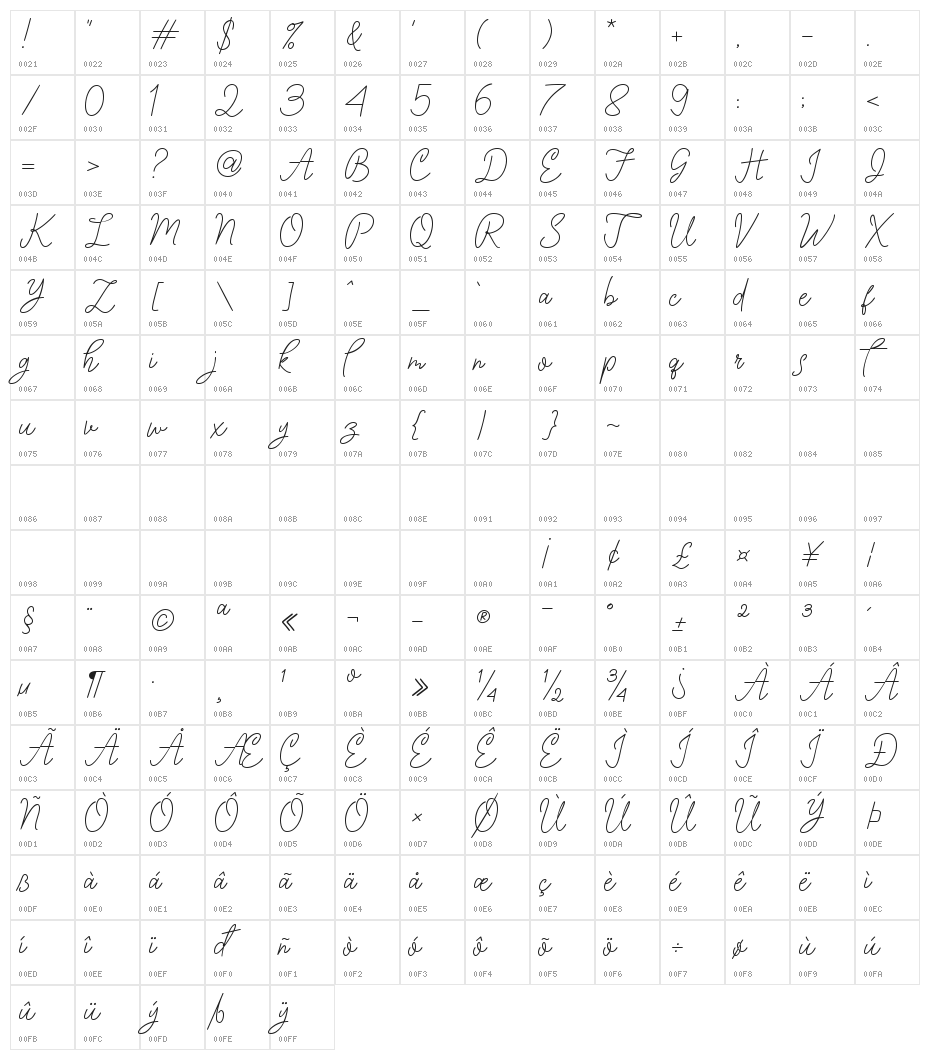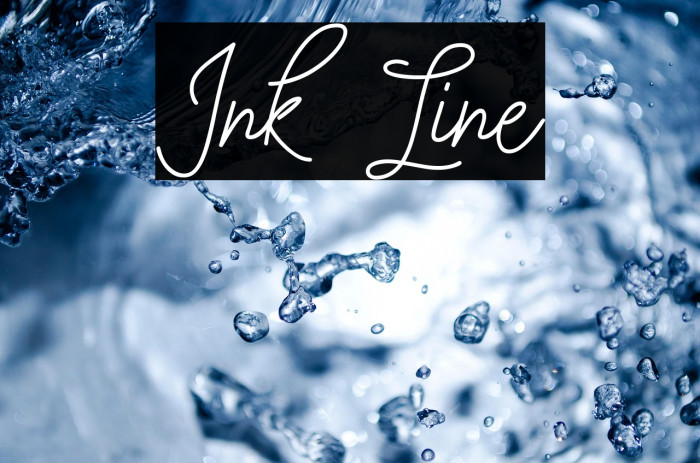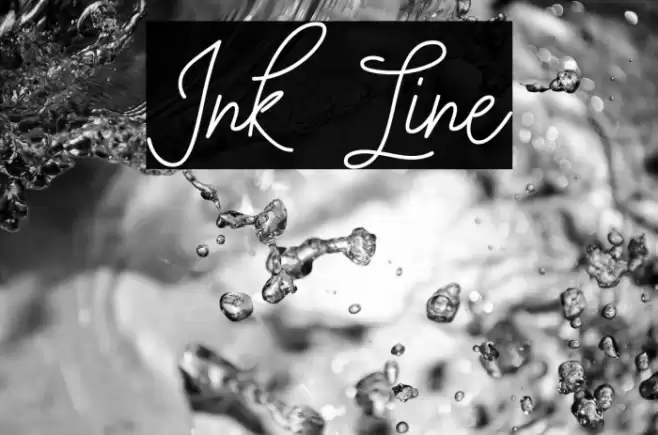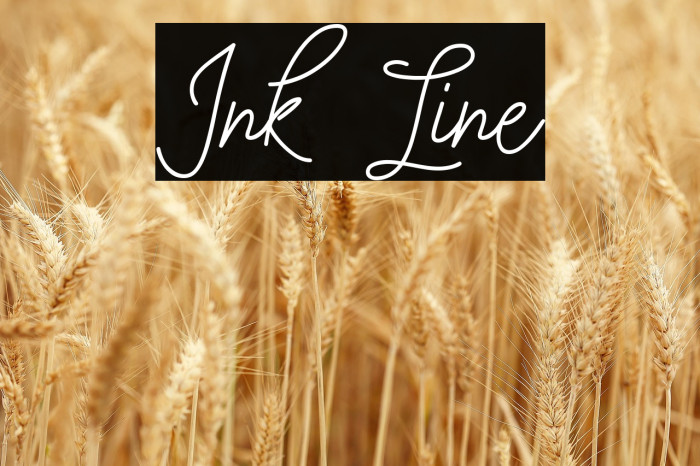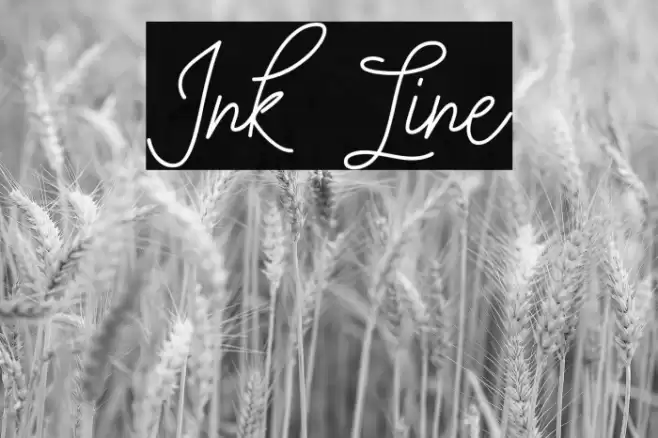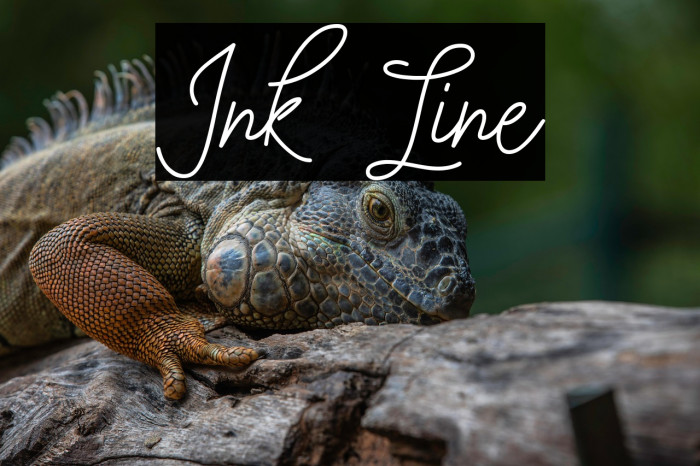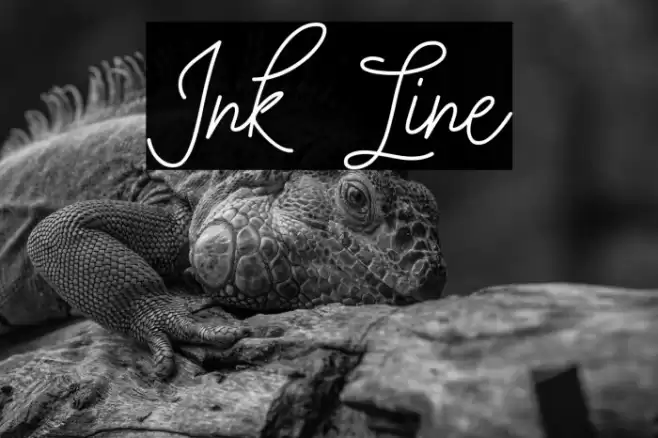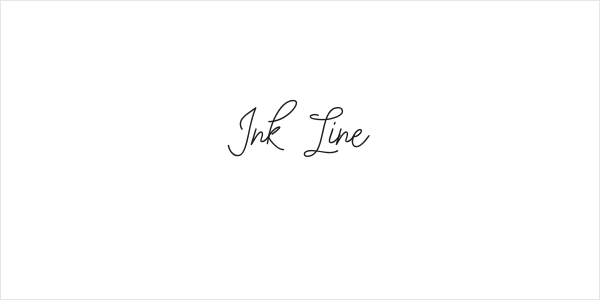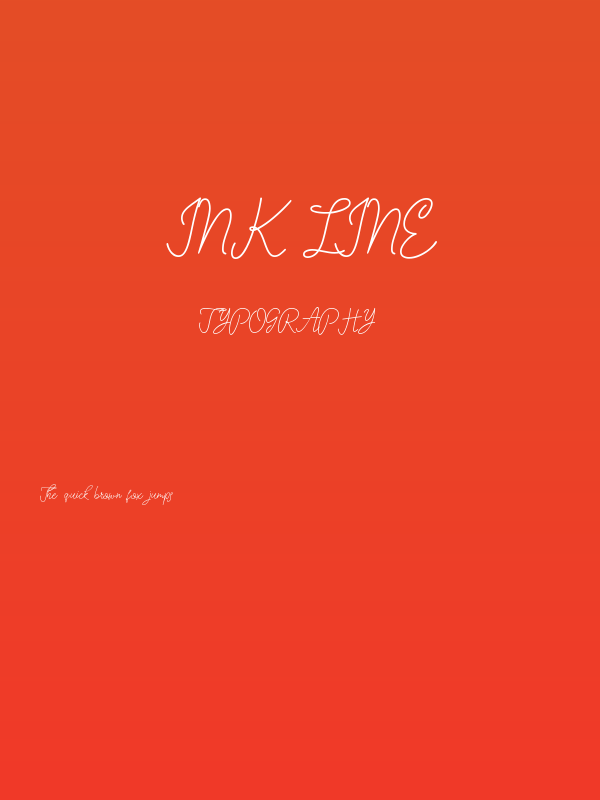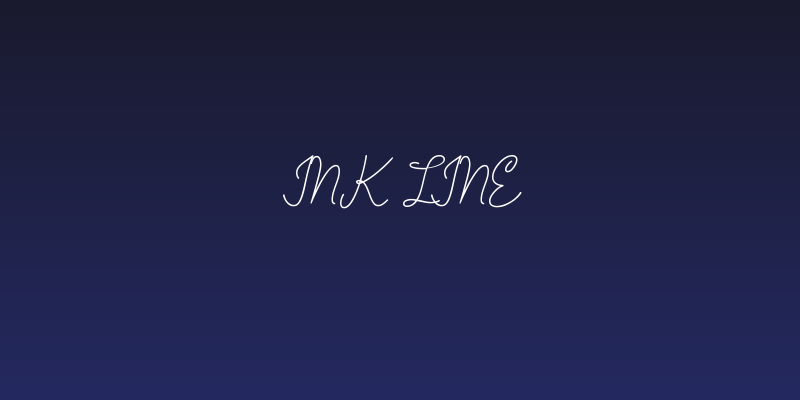
Ink Line Font
Ink Line Description
This elegant script font features a fluid and graceful style, reminiscent of traditional cursive handwriting. The characters are connected with smooth, flowing lines that give a sense of continuity and movement. The uppercase letters are slightly more ornate, with subtle flourishes that add a touch of sophistication. The lowercase letters maintain a consistent height, ensuring readability while preserving the font's delicate aesthetic. Numbers and special characters are designed to complement the overall style, maintaining the same flowing and connected appearance. This font is perfect for projects that require a personal, handwritten touch.